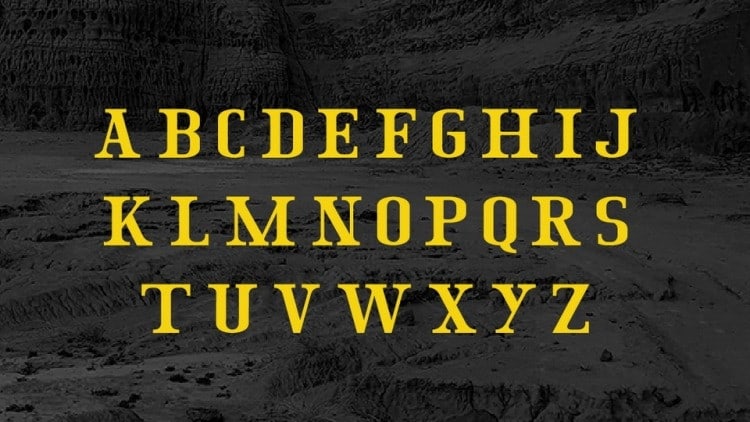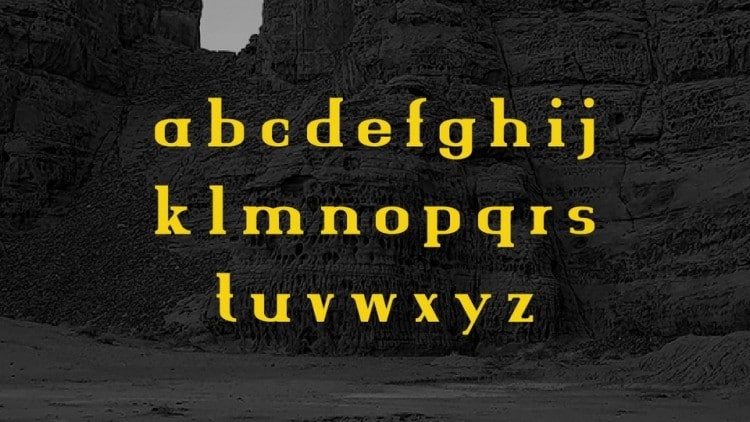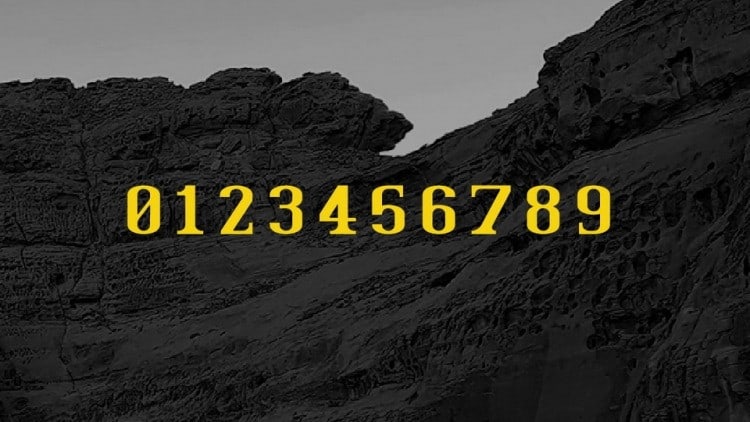
The Life Serif Font is a high-contrast serif typeface for a wide range of application. Due the high contrast and warm curves paired with sharp bracketed serifs it works perfect for display purpose. The font works great in for labels, badges, posters, covers and other projects.